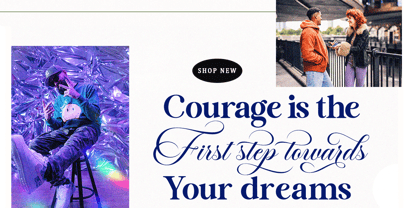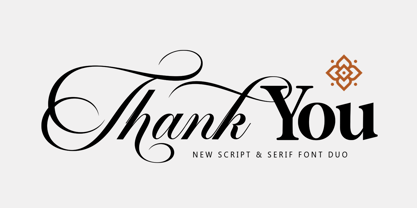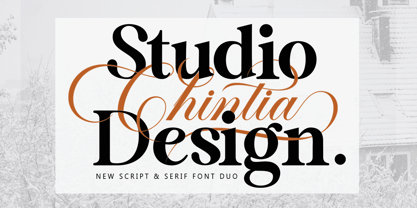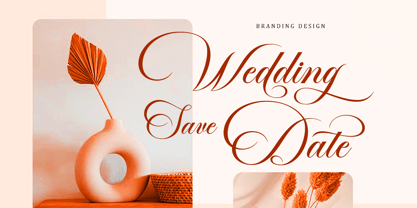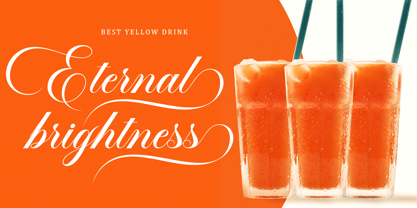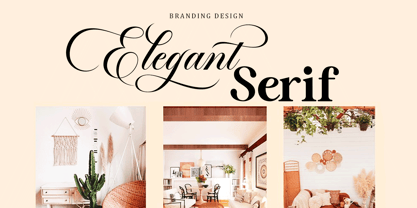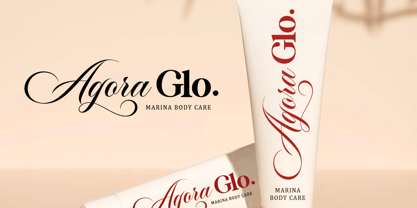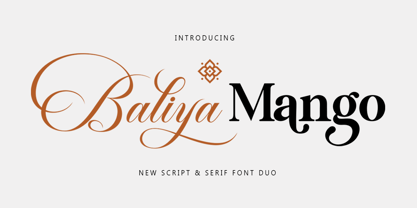
Baliya Mango
by Gold Type
The Baliya Mango Font Family was designed by Wahi Din and published by Gold Type. Baliya Mango contains 2 styles and family package options.
Introducing Baliya Mango Font Duo . This luxurious script font and timeless serif font were designed perfectly for each other—not only are they strong standalone fonts, but they pair beautifully when placed side by side. Feeling creative? These fonts can even be mixed in the same word for an even more interesting layout, giving you a versatile font set that you can use & love across a variety of design projects.
Baliya Mango Font Duo is an elegant serif typeface that was made to stand out. With stunning contrast, organic curves, and crisp letters, Baliya Mango is a phenomenal choice for any project, whether it focuses on luxury branding or typefaces. This font is perfect for many projects, for modern or even retro vintage designs, branding, logos, crafts, stickers, sublimation, wedding invitations, and more. This font is suitable for various projects such as logos, brands, magazines, signage, fashion, and more.